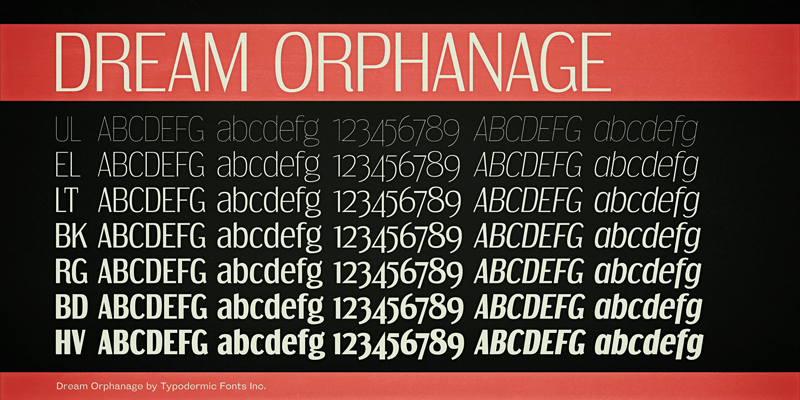
Preview and download Dream Orphanage Font. Created by Typodermic Fonts in Basic Sans serif styles with 100% Free license.
Dream Orphanage is a high quality reconstruction of the 1990s freeware classic, Dream Orphans. The old-style g is still available as an OpenType alternate as well as a new, simple g. This font includes a license that allows free commercial use: sometimes referred to as a desktop license. This allows you to install the font on a computer and use it to create posters, web graphics, game graphics, t-shirts, videos, signs, logos and more. Read the license agreement for details. If you'd like to embed this font in an app, ebook, on the web or anything that's not covered by the desktop license agreement, visit the link below. You'll find distributors who offer different types of licenses or you can contact me for help. http://typodermicfonts.com/dream/ This free font is part of a larger font family. Check out the rest of the family through the link above. |